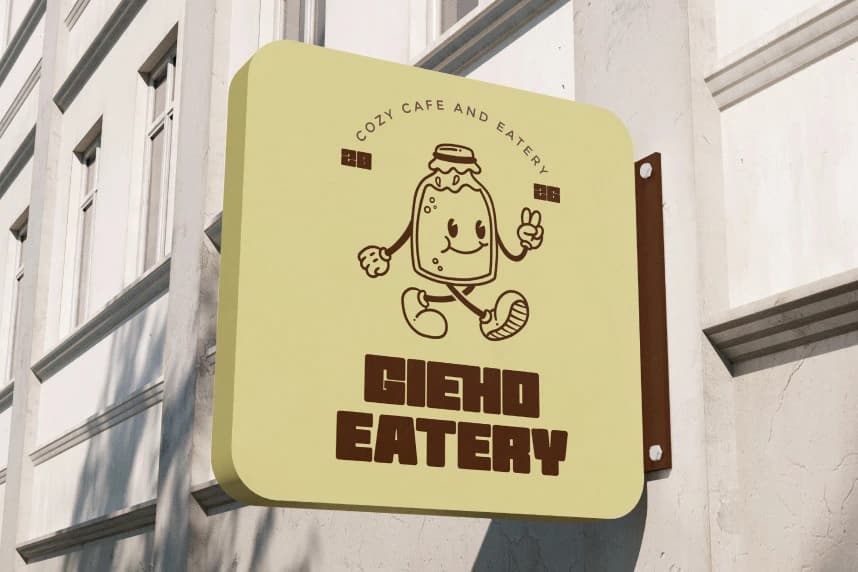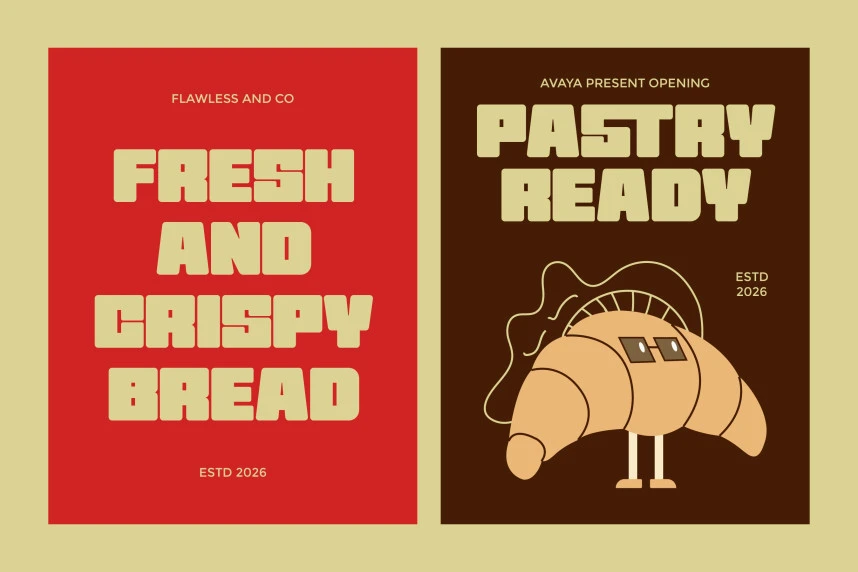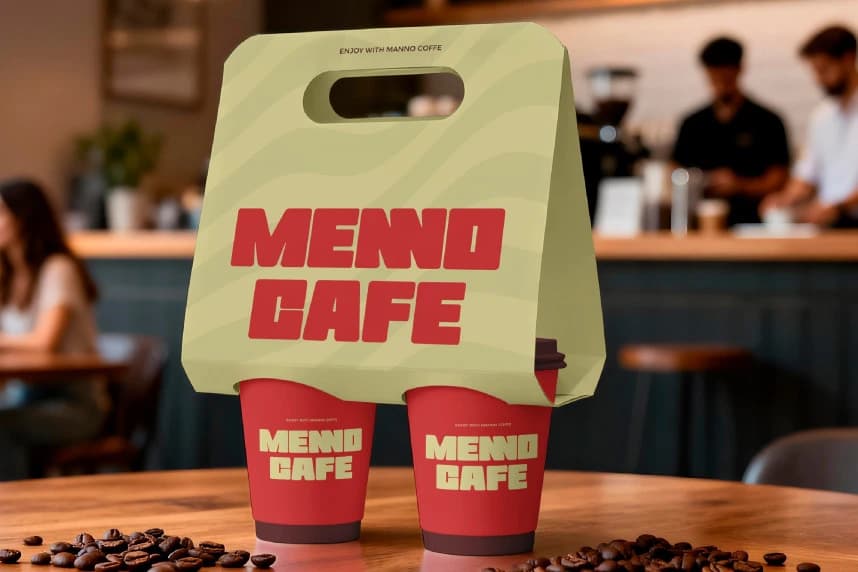
Avaya Font
Avaya Font is a modern bold rounded display sans typeface that combines strength with softness in a perfectly balanced design. Its solid structure and curved edges create a bold presence without feeling harsh, giving your typography a friendly and approachable personality.